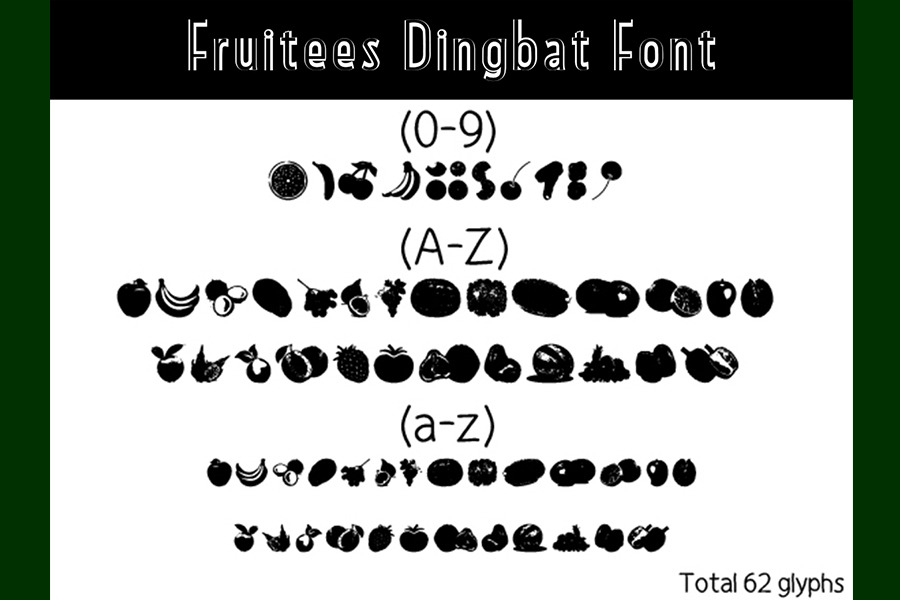
Fruitees Dinbat Font
Fruitees is a dinbat font Set of 62 font characters. These are fruits sign themed dingbats that can be used as bullets, menu icons, etc. As a .ttf and .otf file, it can be installed in just about any program that uses text. Enjoy!